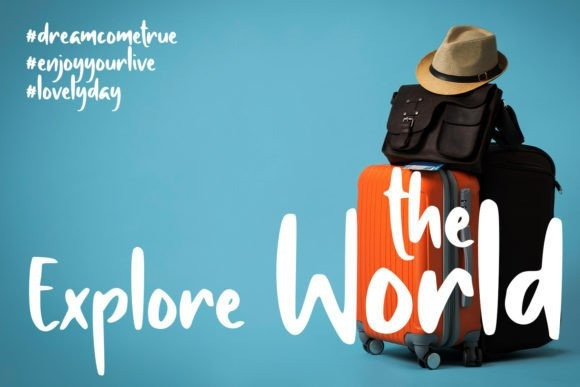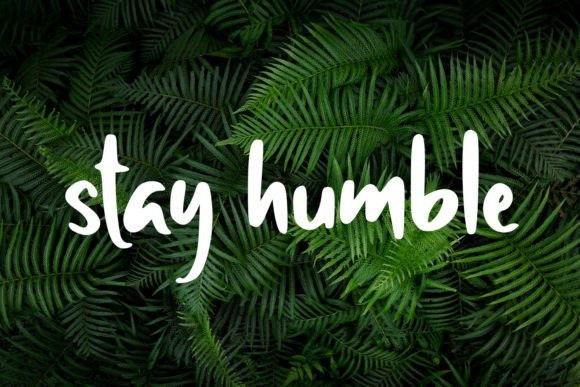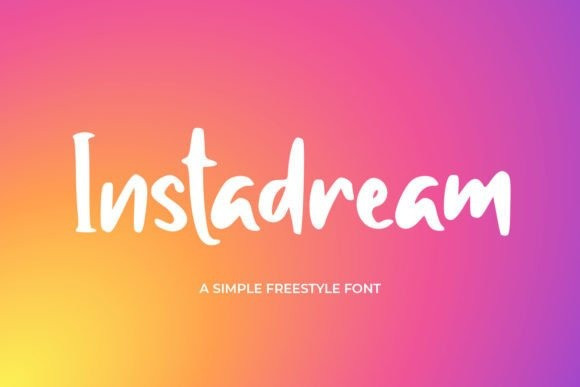
Instadream Script Font
Instadream Script Font is great for quotes, mugs, tote bag designs, cards, banners, social media, and anything of craft projects that needs a freestyle feel.